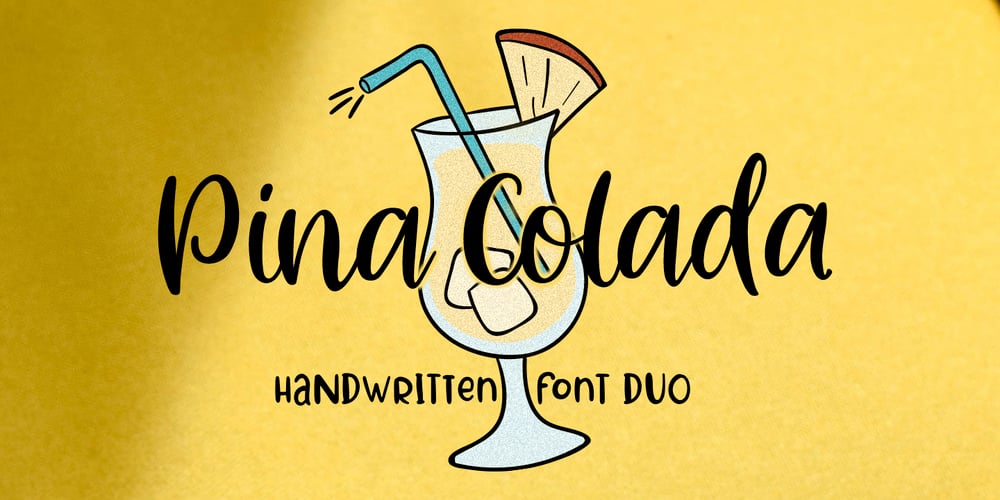
Pina Colada Font Family was designed by Pavel Larin and published by Larin Type Co. Pina Colada contains 2 styles and family package options. Pina Colada this beautiful handwritten font duo is a smooth script and playing sans, they perfectly combine and complement each other, they will bring their unique style to any design project and make it unique. It is as sweet as Pina Colada, fall in Love with its incredibly versatile and simple style and use it to create gorgeous wedding invitations, beautiful stationery, greeting cards, attractive social media messages and more! This font is easy to use, has OpenType features, and supports PUA encoding.